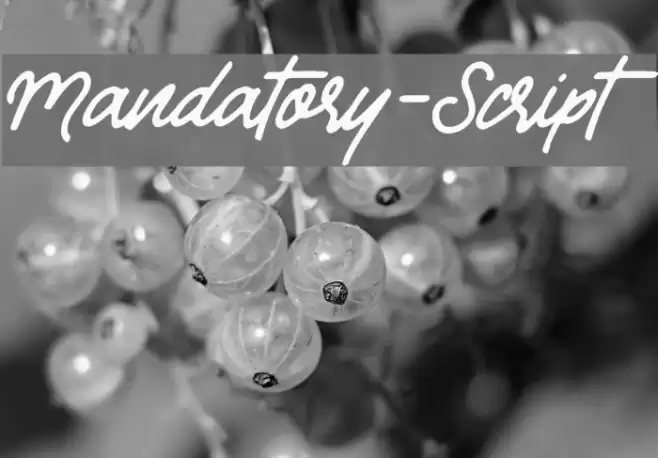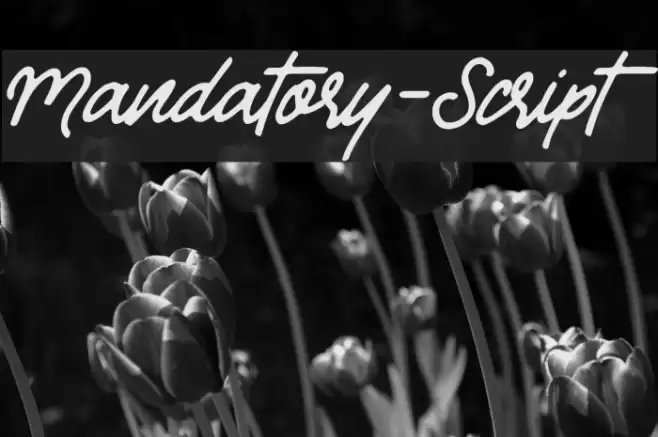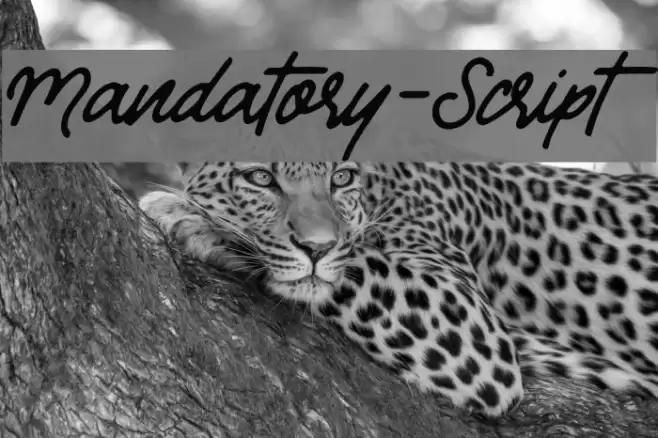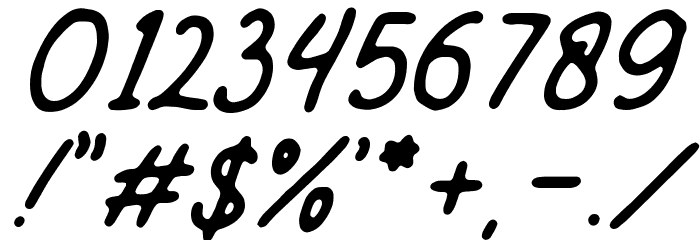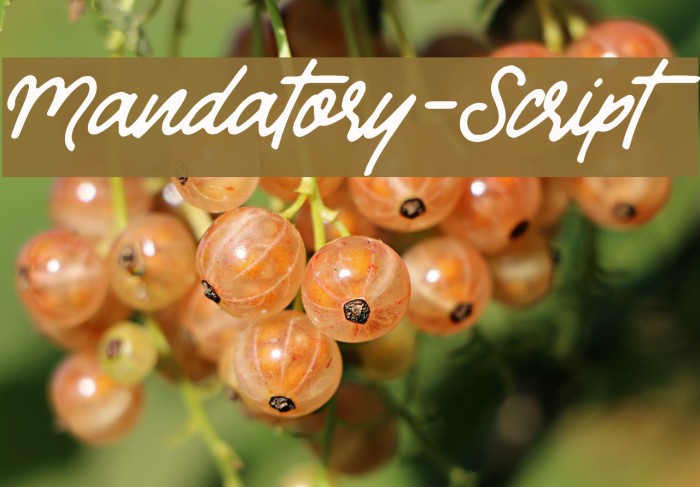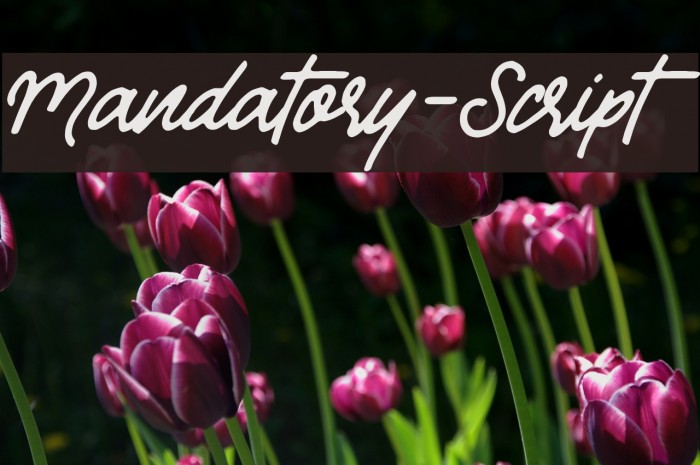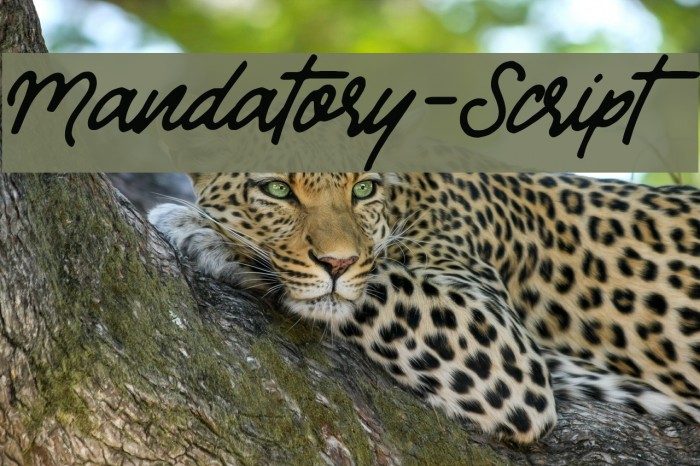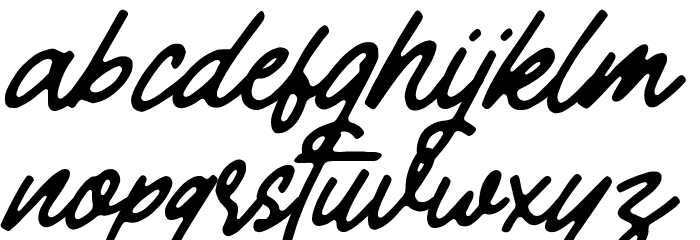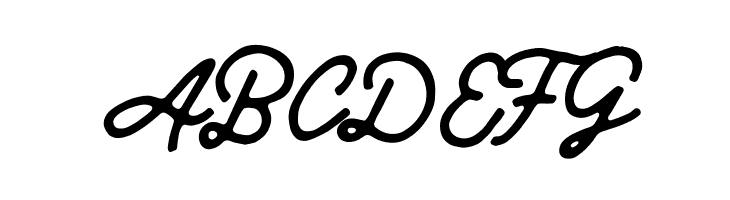
Mandatory-Script Font
Mandatory-Script Description
This font exudes a lively and dynamic energy with its fluid, cursive style. The letters are interconnected, creating a seamless flow that mimics natural handwriting. The uppercase characters maintain a consistent height, while the lowercase letters exhibit a playful bounce, adding to the font's charm. The numerals are bold and clear, ensuring readability. Special characters are well-integrated, maintaining the overall aesthetic. The strokes are thick and consistent, providing a bold appearance that stands out. This font is perfect for projects that require a personal touch, such as invitations, greeting cards, or branding materials.
A bold, cursive script font with a lively, handwritten style from Uncategorized fonts.
- Proposed Projects: Ideal for invitations, greeting cards, branding, and personal projects requiring a handwritten touch.
- Use Case: Logos, Headlines, Invitations